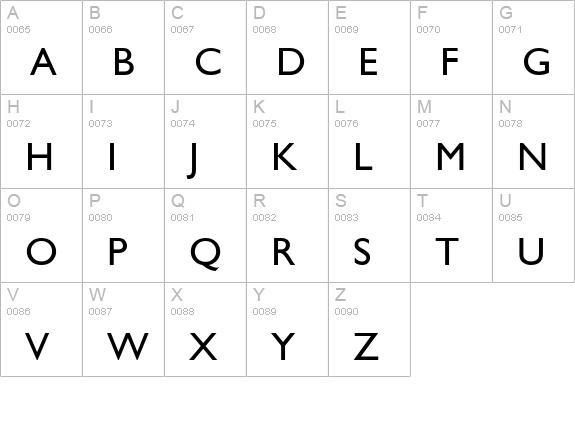
Stimmell font is a modern and stylish typeface that exudes elegance and sophistication. Its sleek lines and unique design make it perfect for a wide range of design projects, from branding to packaging to web design. Stimmell font is versatile and can be used for both headings and body text, adding a touch of class to any project. The best part? Stimmell font is completely free to download at FontsMarket.com. This means you can elevate your designs without breaking the bank. Whether you're a seasoned designer looking to refresh your font collection or a beginner looking for a high-quality typeface to add to your toolbox, Stimmell font is a fantastic choice. Download it today and see for yourself the impact this stunning font can make on your next project.